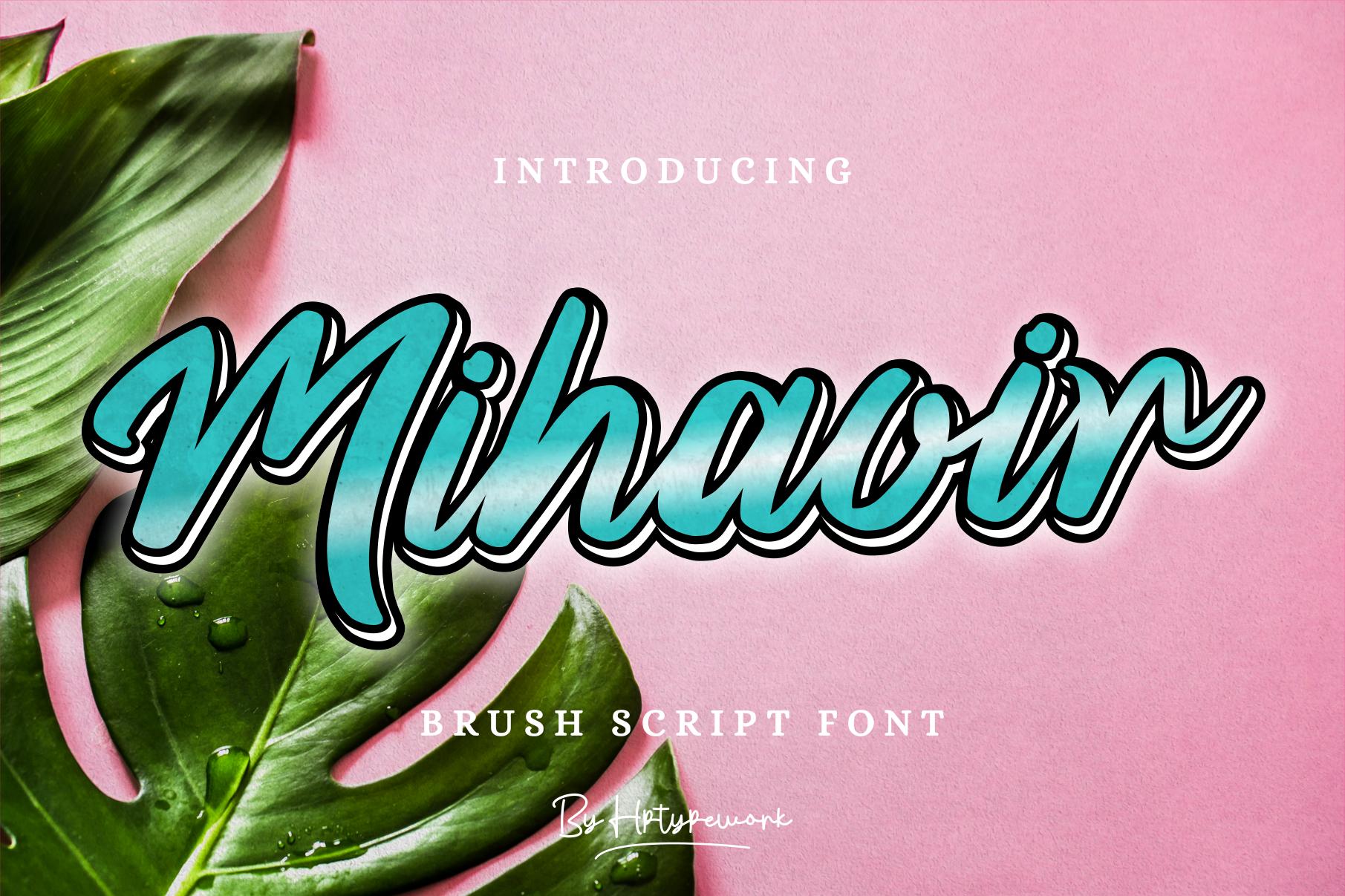
Mihaoir Font Description
Mihaoir is a unique and interesting handwritten font. Incredibly versatile, this font will fit a wide pool of designs. Fall in love with its incredibly stylish look and use it to create spectacular designs!